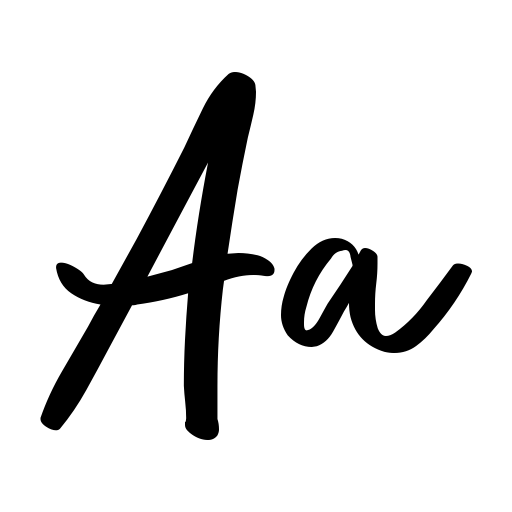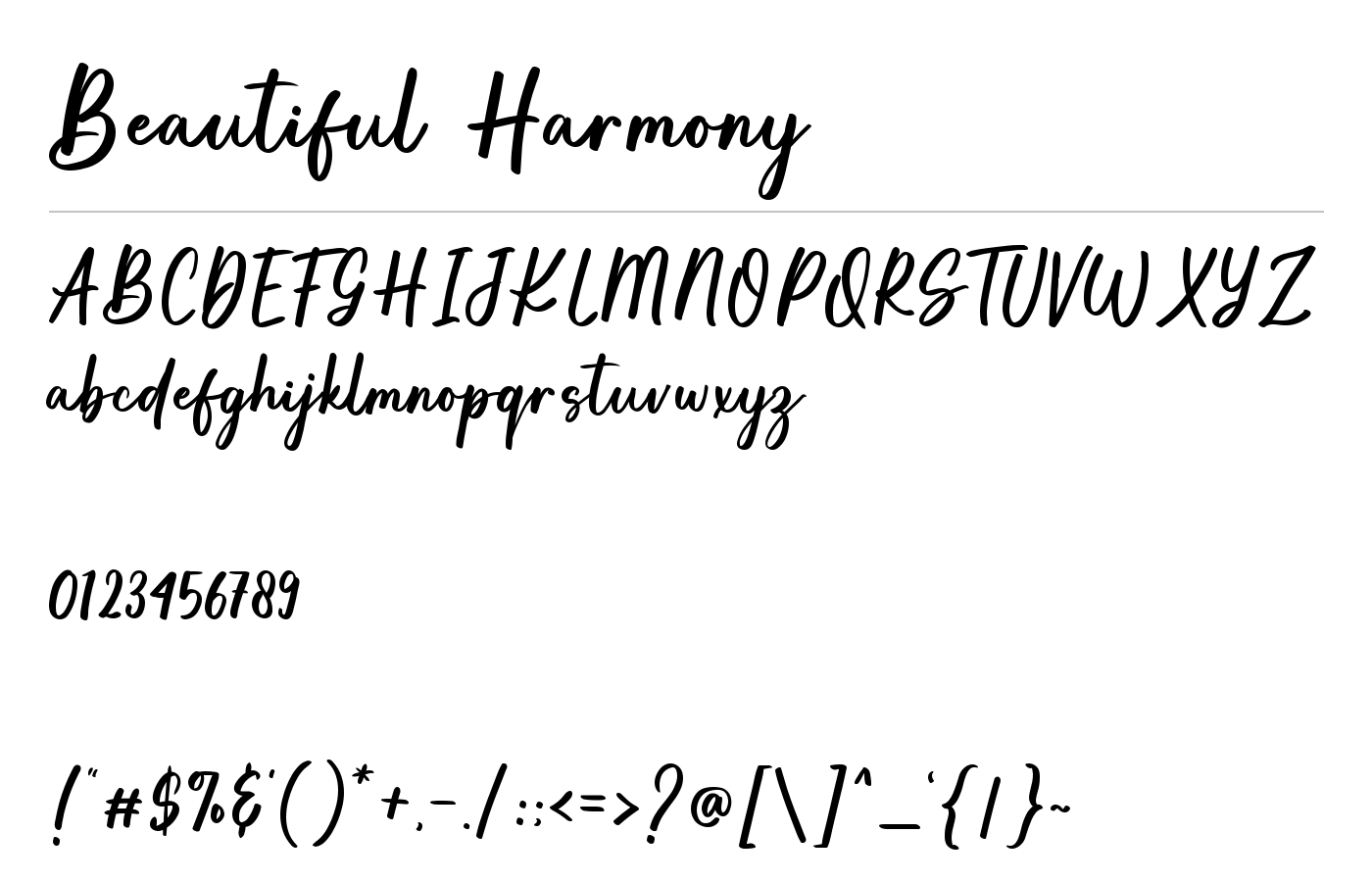
Beautiful Harmony is a lively and elegant script font with a handwritten feel, featuring smooth, flowing strokes and a moderate contrast that adds a personal and charming touch. Its upright, slightly condensed letterforms and varied stroke thickness make it perfect for designs seeking a warm, approachable, yet refined style, ideal for invitations, branding, and creative headlines. This font balances casual friendliness with sophistication, making it versatile for both modern and classic aesthetics.
Beautiful Harmony Font
About Beautiful Harmony Font